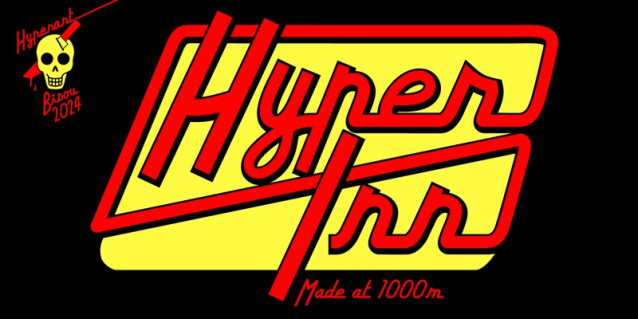
Hyper Inn Font
Hyper Inn Font,by Bisou is perfectly fit for branding, logo, wedding things, greeting cards, fashion, lookbook, marketing promotion, anytime you want to look fancy elegant but still casual.